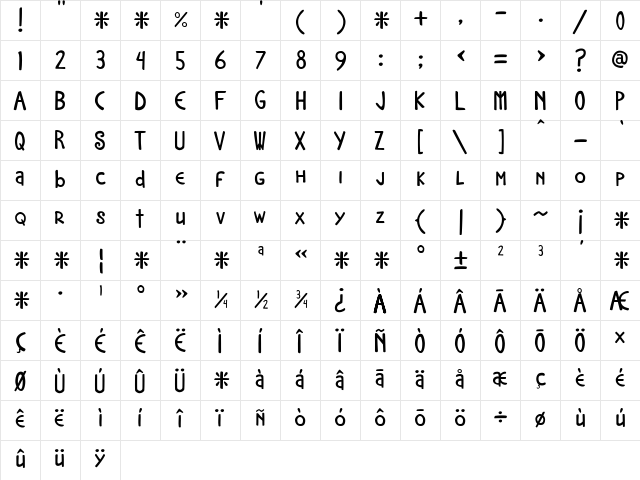
Neocat Regular
| Designer | Javier Ugarte del Corro |
Design Context for Neocat Typeface
Neocat is a composed and adaptable typeface that performs quietly and consistently across a wide range of design contexts.